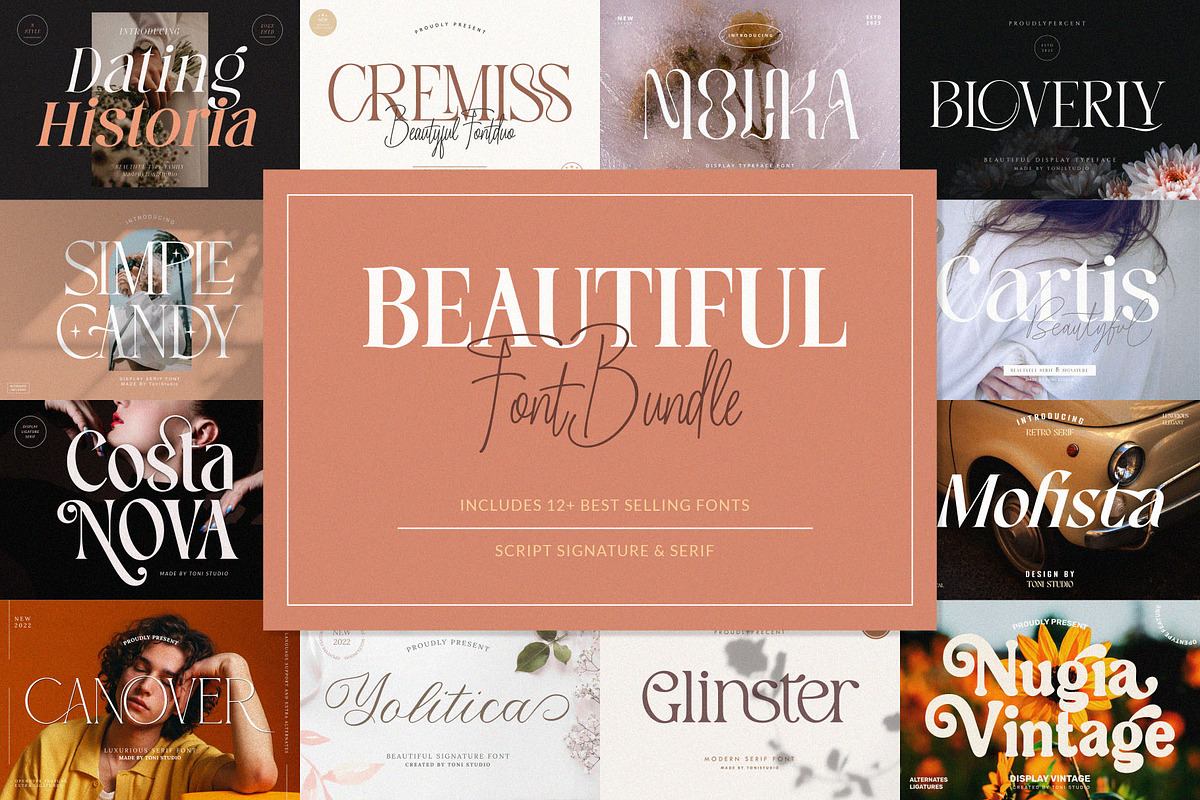
Beautiful Fonts Bundle Free Download
Beautiful Fonts Bundle Free Download is a curated collection of elegant, stylish, and versatile typefaces perfect for a wide range of design projects. Whether you need fonts for logos, branding, invitations, websites, or social media, this bundle provides you with a variety of creative options to elevate your work.
The bundle includes a mix of sophisticated serif, modern sans-serif, and hand-lettered script fonts, offering both classic elegance and contemporary flair. All fonts in the bundle are carefully crafted to provide excellent readability while maintaining visual appeal. The fonts support multilingual characters and work seamlessly on both Mac and Windows systems.